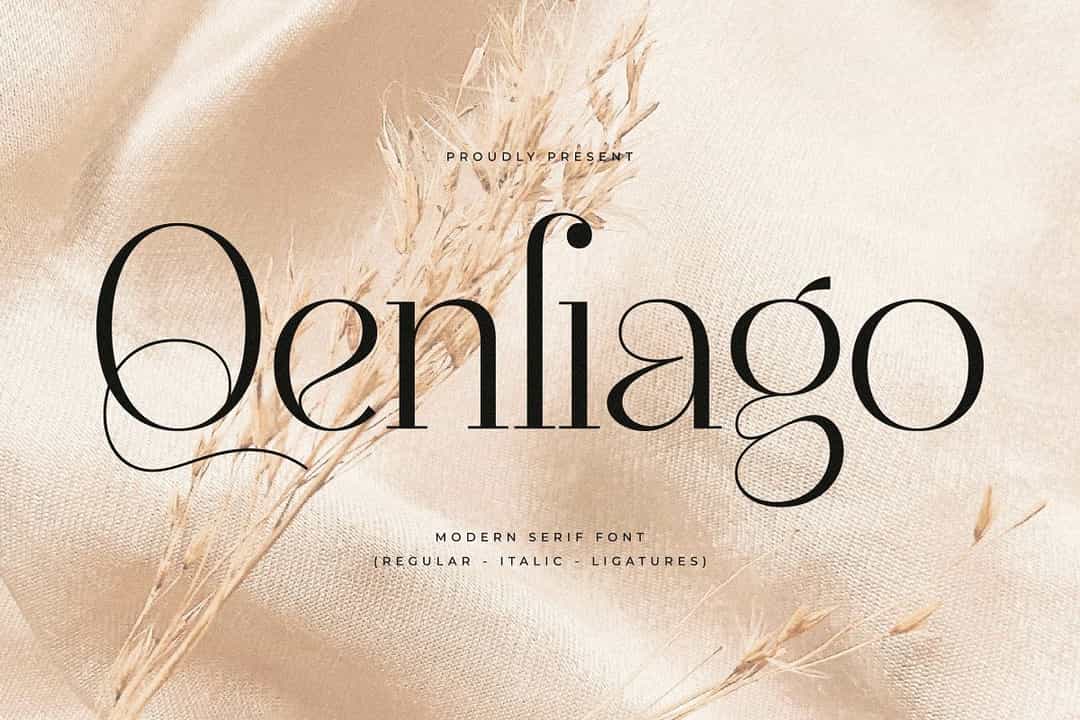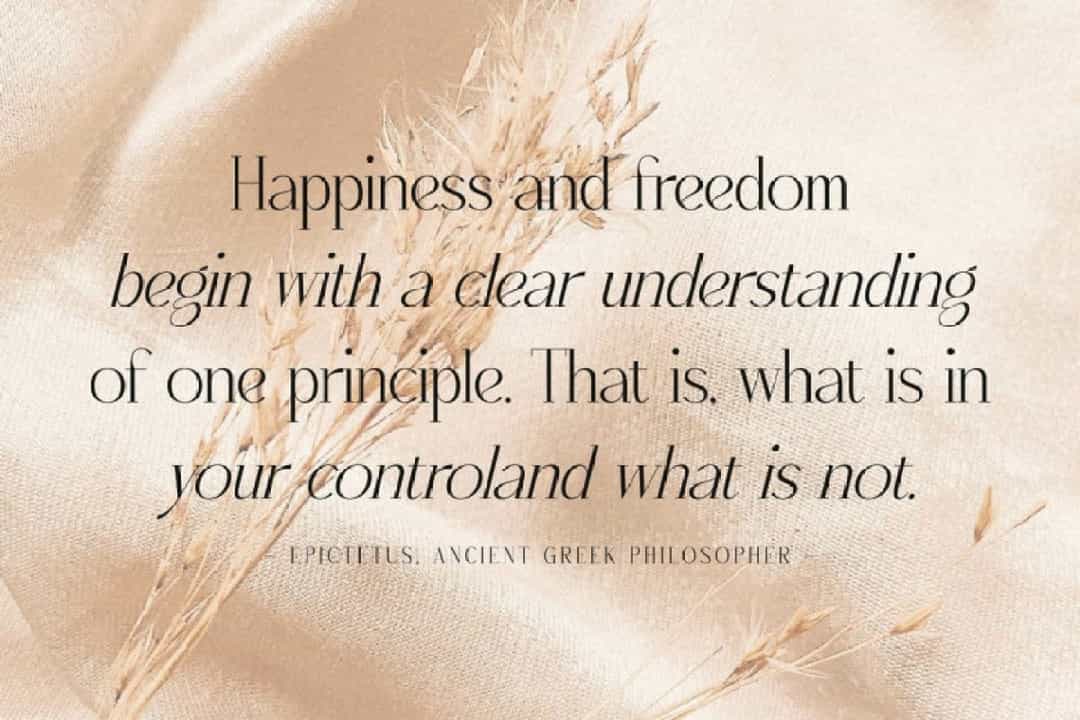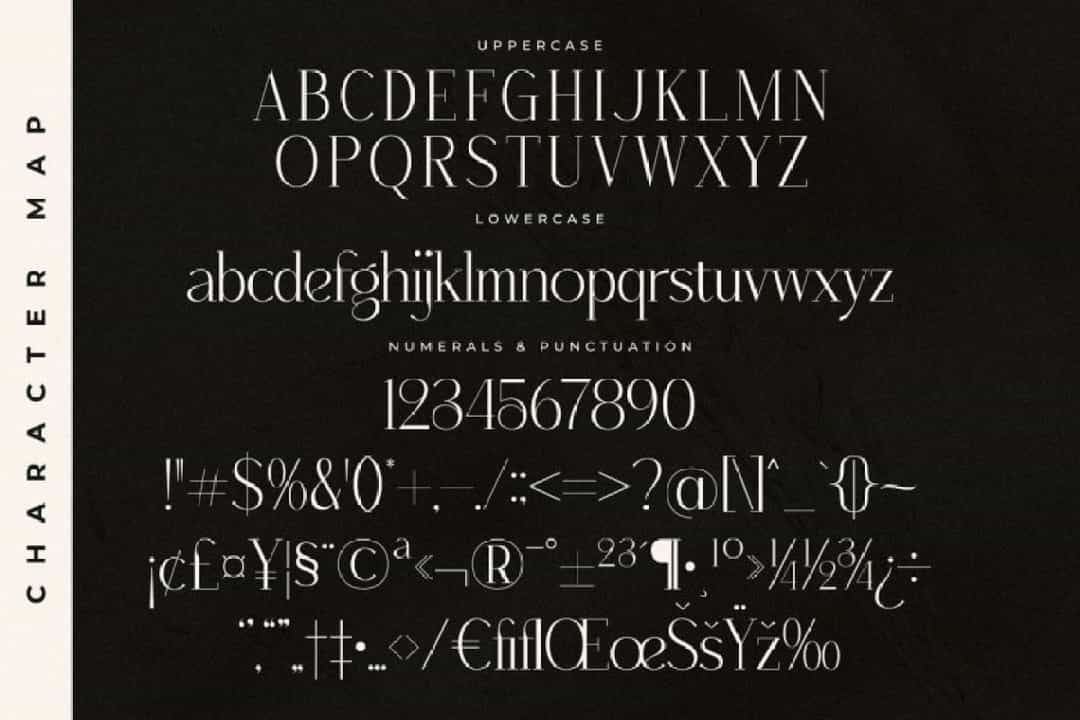
Qenliago is an elegant serif typeface with classic and contemporary appeal, which makes it the ideal choice for creating sophisticated logos, movie or book titles, fashion label clothes labels, magazines lettering or quotes of any kind. This typeface provides endless creative opportunities.